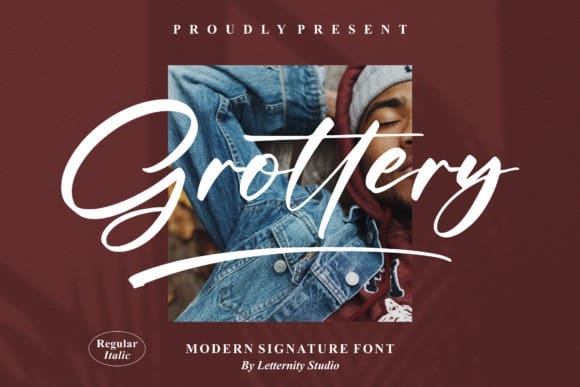
Grottery Script Font
Grottery Script Font is a modern script font. It is suitable for various projects such as: logos, branding projects, homeware designs, product packaging, mugs, quotes, posters, shopping bags, and much more creations that need a beautiful script taste.